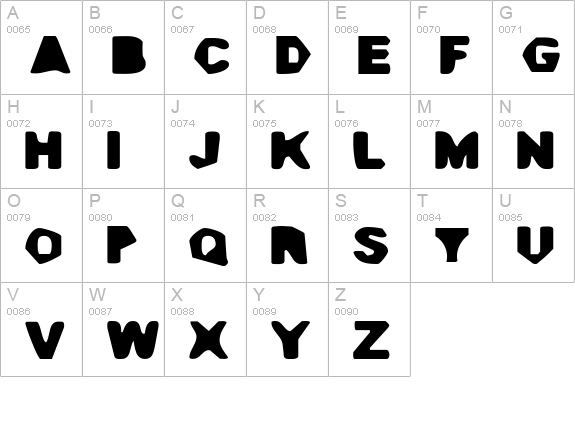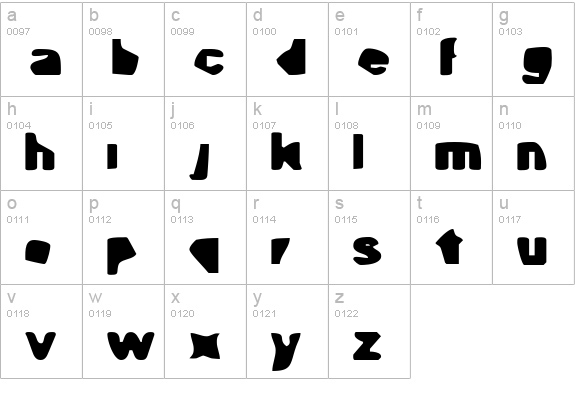
Cave Gyrl font is a unique and captivating typeface that exudes a sense of mystery and adventure. Inspired by ancient cave drawings, this font features rugged edges and primitive symbols that give it a primitive and earthy feel. Perfect for projects that require a touch of the past or a hint of the unknown, Cave Gyrl font will surely make your designs stand out. Best of all, Cave Gyrl font is available for free download at FontsMarket.com. Whether you're working on a poster, logo, or branding project, this font is sure to add a touch of intrigue and personality. Download Cave Gyrl font today and unleash your creativity with this one-of-a-kind typeface.